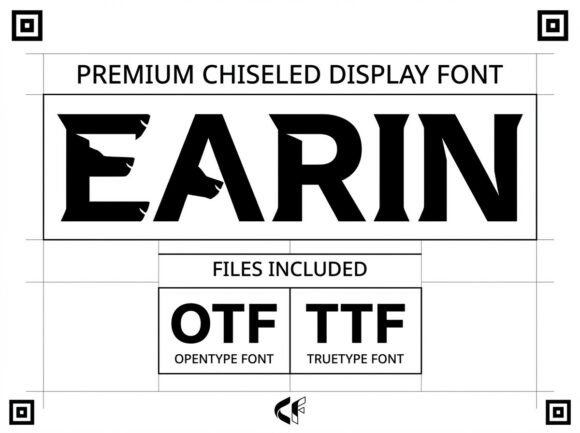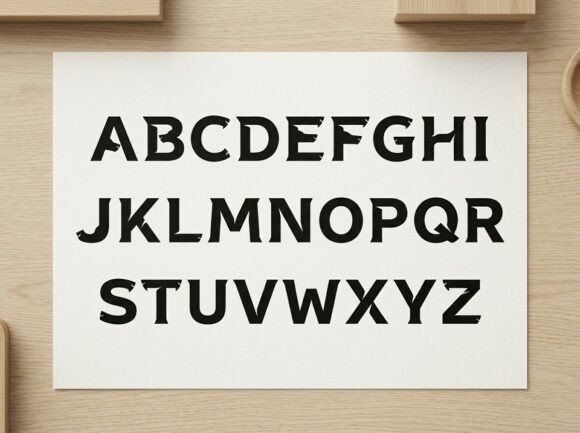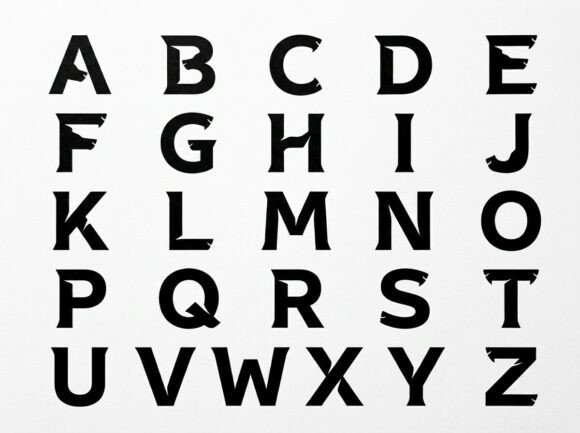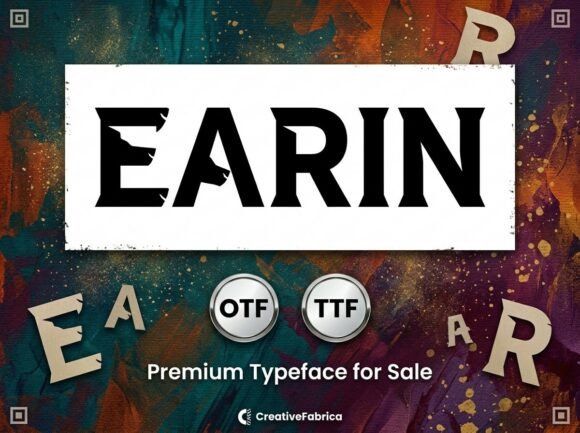
Earin Font: Unleash Industrial Strength and Command Presence
In the world of typography, fonts play a crucial role in shaping the identity of a brand, product, or service. When it comes to making a bold statement, few fonts can match the industrial strength and command presence of Earin. This premium chiseled display font is built for maximum impact, featuring bold, sans-serif letterforms that exude power, precision, and a sense of rugged beauty.
The Industrial Aesthetic of Earin
Earin’s design is inspired by the raw, unyielding aesthetic of stone masonry and forged metal. The font’s bold, sans-serif letterforms are characterized by sharp, angular cuts and deep “chiseled” negative space apertures, giving it a unique, handcrafted feel. The heavy visual weight and rhythmic architectural terminals of Earin radiate a sense of unyielding power and structural precision, making it an extraordinary choice for masculine branding, construction and engineering logos, high-octane gaming headers, and bold cinematic titles.
Crafting a Standout Brand Identity with Earin
Whether you are crafting a standout header for a tech startup or a rugged brand identity, Earin delivers a sense of handcrafted strength and professional, chiseled beauty to your visual communication. The font’s industrial strength and command presence make it perfect for brands that want to convey a sense of resilience, durability, and expertise. With Earin, you can create a bold, attention-grabbing visual identity that sets your brand apart from the competition.
Key Features of Earin Font
- Bold, sans-serif letterforms: Earin’s letterforms are designed to make a bold statement, with a heavy visual weight that commands attention.
- Sharp, angular cuts: The font’s sharp, angular cuts give it a rugged, handcrafted feel that’s perfect for industrial and construction-related branding.
- Deep “chiseled” negative space apertures: Earin’s negative space apertures are designed to mimic the look of stone masonry or forged metal, adding to the font’s industrial aesthetic.
- Rhythmic architectural terminals: The font’s terminals are designed to radiate a sense of structural precision and power.
Use Cases for Earin Font
Earin is a versatile font that can be used in a variety of contexts, including:
- Masculine branding: Earin’s bold, industrial aesthetic makes it perfect for masculine branding, particularly in industries such as construction, engineering, and manufacturing.
- Construction and engineering logos: The font’s rugged, handcrafted feel makes it well-suited for construction and engineering logos that require a sense of strength and resilience.
- High-octane gaming headers: Earin’s bold, attention-grabbing design makes it perfect for high-octane gaming headers that require a sense of energy and excitement.
- Bold cinematic titles: The font’s industrial strength and command presence make it well-suited for bold cinematic titles that require a sense of drama and impact.
Tips for Using Earin Font Effectively
To get the most out of Earin, here are a few tips to keep in mind:
- Use it sparingly: Earin’s bold design can be overwhelming if used excessively. Use it sparingly to create a bold, attention-grabbing visual identity.
- Pair it with a neutral font: Earin’s industrial aesthetic can be paired with a neutral font to create a striking contrast that adds visual interest.
- Experiment with colors and textures: Earin’s rugged, handcrafted feel can be enhanced with colors and textures that add depth and visual interest.
Earin is a premium chiseled display font that’s built for maximum impact. With its bold, sans-serif letterforms, sharp, angular cuts, and deep “chiseled” negative space apertures, Earin exudes a sense of industrial strength and command presence that’s perfect for masculine branding, construction and engineering logos, high-octane gaming headers, and bold cinematic titles. Whether you’re a designer or crafter, Earin is an excellent choice for anyone looking to create a bold, attention-grabbing visual identity that sets their brand apart from the competition.